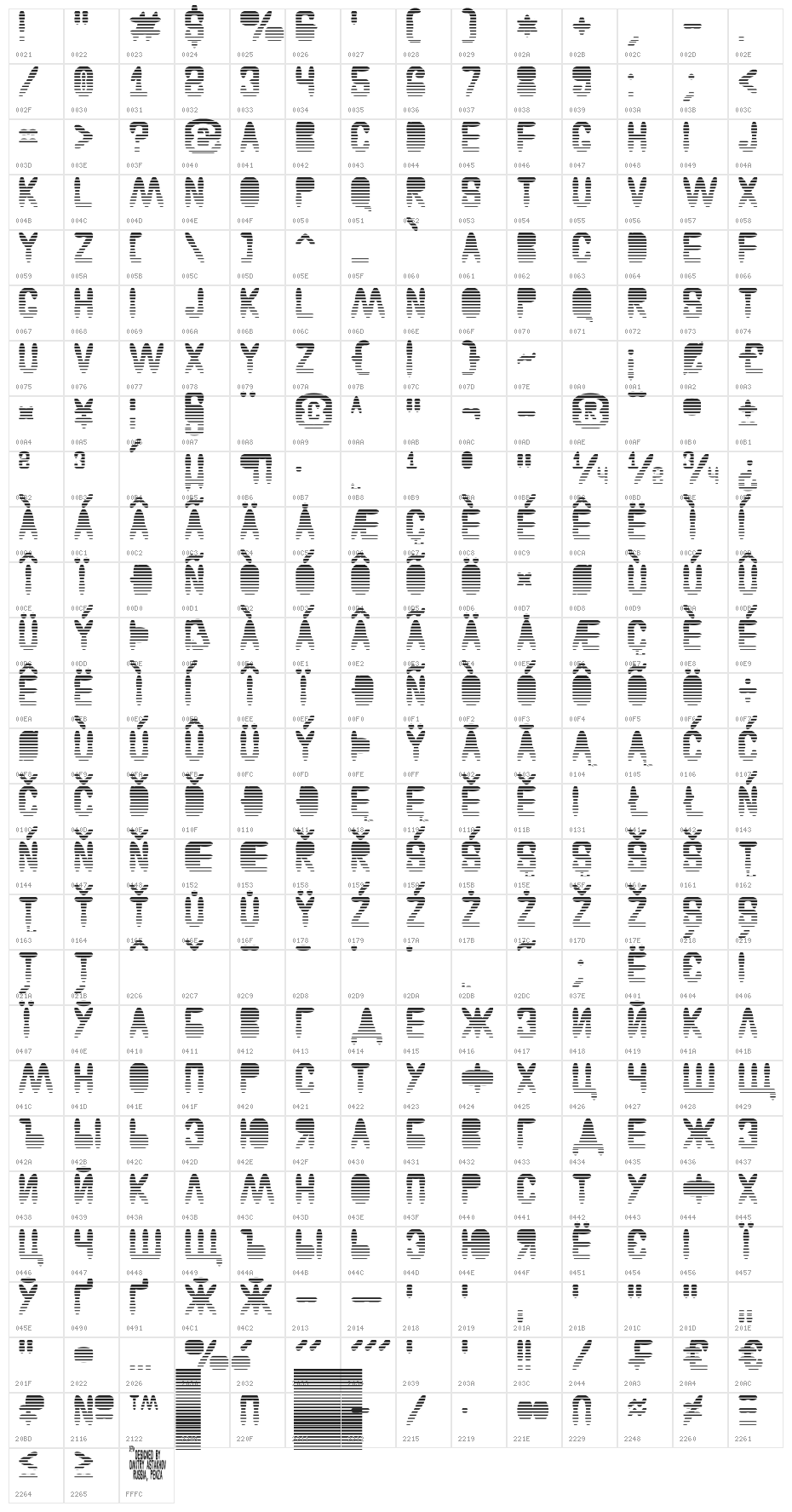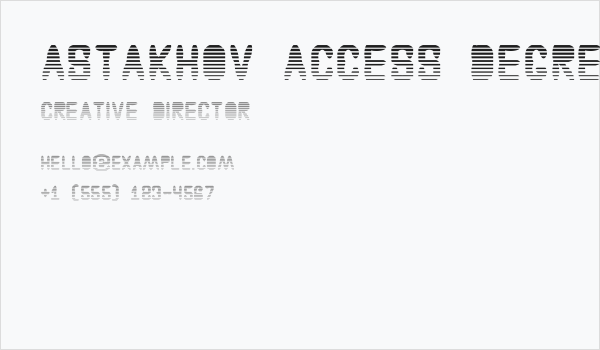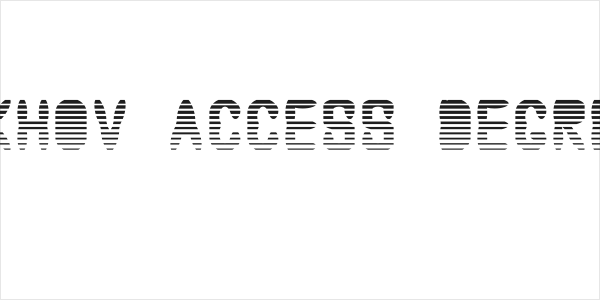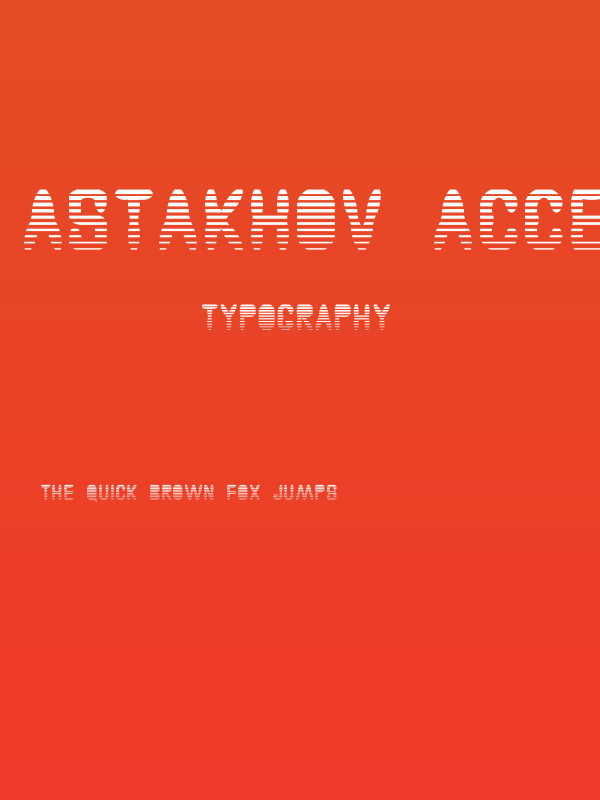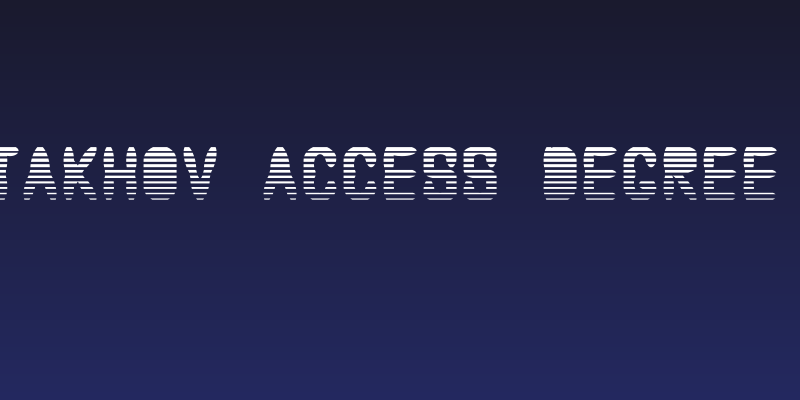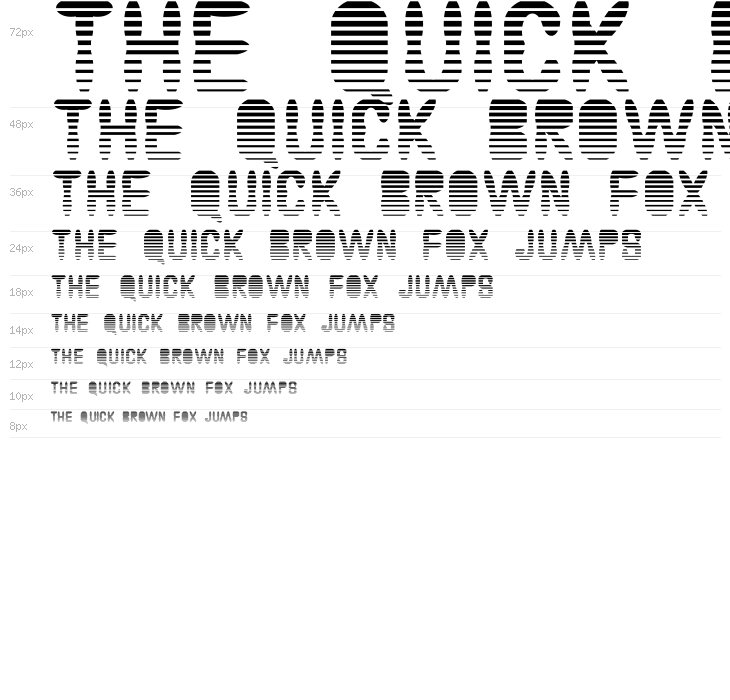
Astakhov Access Degree LF Font
Astakhov Access Degree LF Description
This font features a unique design characterized by horizontal lines that create a striped effect across each character. The letters are bold and uppercase, with a futuristic and digital aesthetic. The consistent use of horizontal lines gives the font a sense of movement and dynamism. The numbers and special characters follow the same design principle, ensuring uniformity across all glyphs. This font stands out due to its distinctive style, making it ideal for projects that require a modern and eye-catching look.